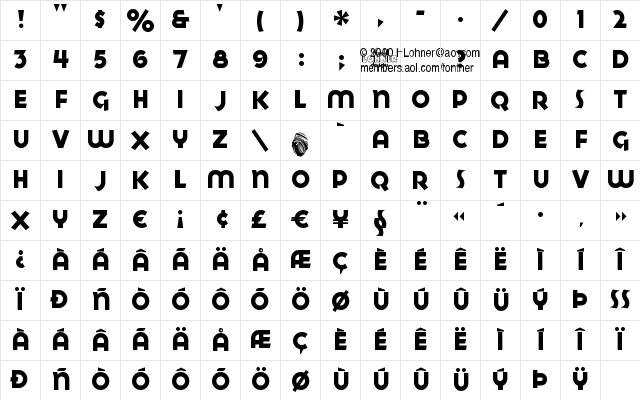
Goya Heavy
Copyright: Goya Heavy computer font v1.0 ©2000 Harold Lohner  " http://members.aol.com/fontner. Extrapolated from the logo of the GOYA© food products company
Design Context for Goya
Goya is a composed and adaptable typeface that performs quietly and consistently across a wide range of design contexts.